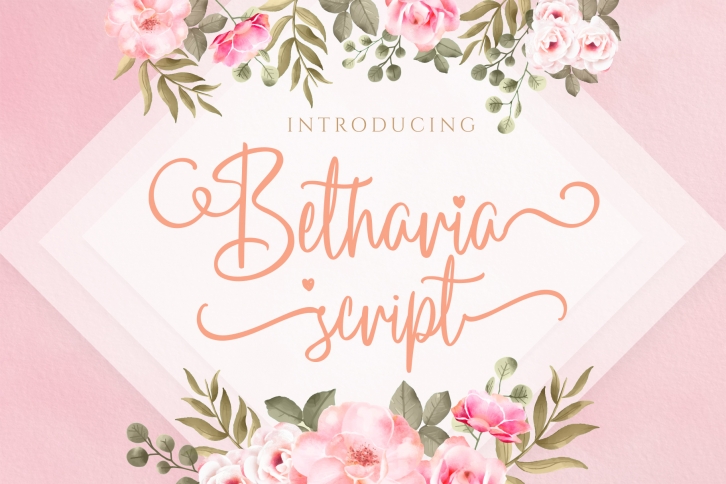
Betharia Script is a great font that was designed by Cotbada Studio. Imagine the amount of combinations you can create using this font! The archive is 2.40 MB and it was released on May 12, 2019. Betharia Script looks beautiful on wedding invitations, greeting cards, logos, posters, labels, t-shirt designs, logos, business cards and is perfect for use in ink or watercolor works, fashion, magazines, packaging and food menus, children's books and more!